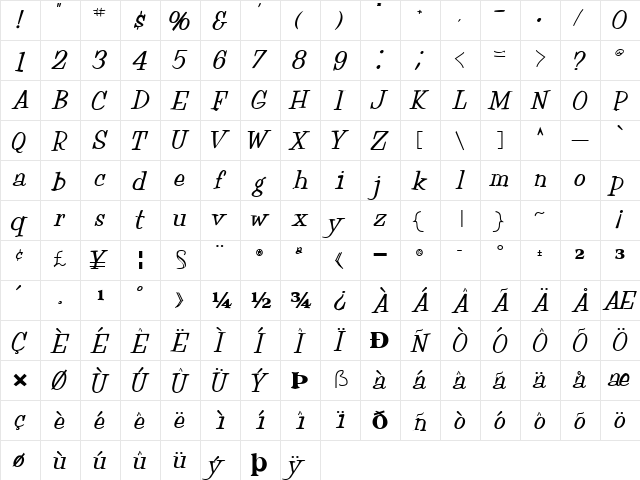
JoKer84 Bold
Design Context for JoKer84 Typeface
JoKer84 is a composed and adaptable typeface that performs quietly and consistently across a wide range of design contexts. Its bold stroke weight gives it real presence on the page.